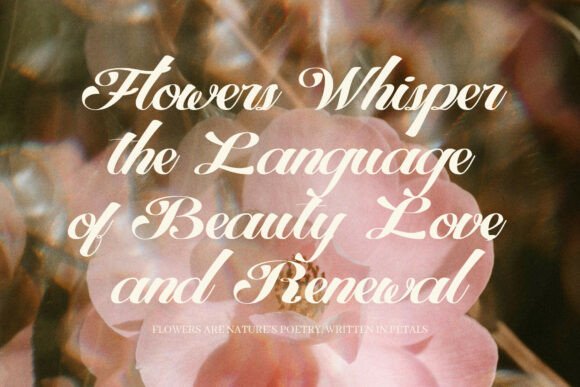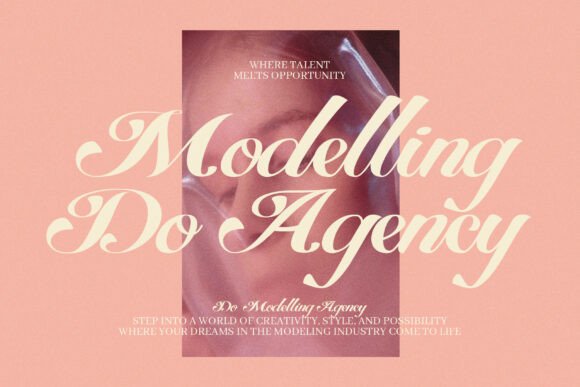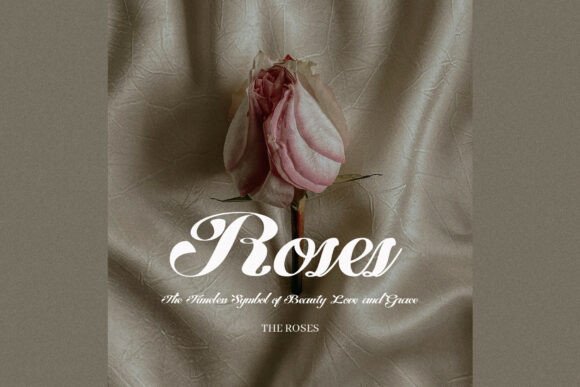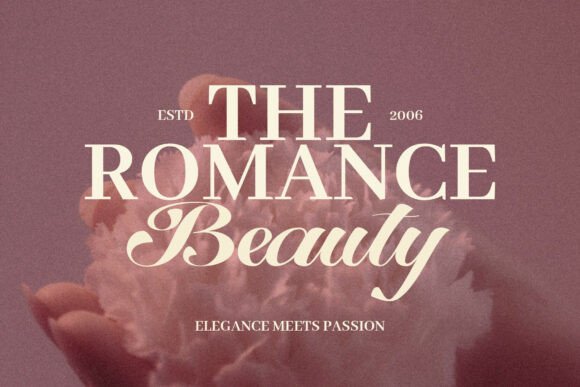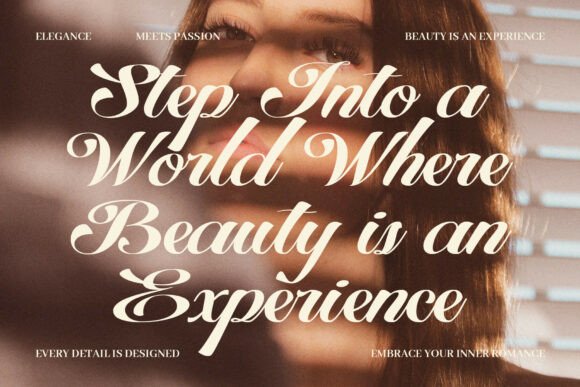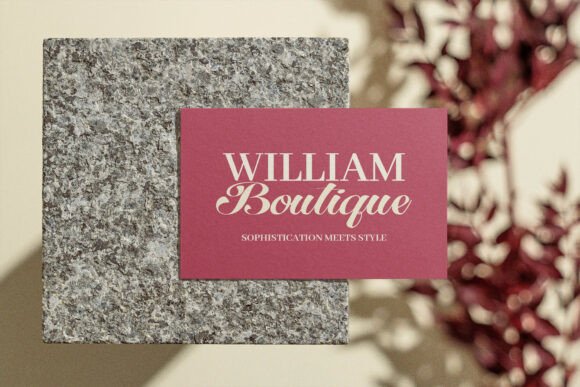
Discover the Timeless Elegance of Fantyns Font
There’s nothing quite like the thrill of creating something from scratch, watching your design come to life, and knowing you’ve made it special. Whether it’s a wedding invitation, a logo for a new business, or a social media graphic that captures the essence of your brand, the right font can make all the difference.
That’s where Fantyns Script Font comes in – a stunning calligraphy-style typeface that brings a touch of luxury and romance to any design project. With its smooth curves, artistic swashes, and wide variety of stylistic alternates, Fantyns Font is the perfect choice for designers looking to add a high-end, professional touch to their work.
As a designer, you know how important it is to have a font that’s not only beautiful but also functional. That’s why Fantyns Font is a valuable addition to any design toolkit – easy to read, yet sophisticated, with alternate characters, ligatures, and swirls that let your creativity shine.
Fantyns Font Key Features
- Font Family: Fantyns Font is a unique, hand-drawn script font designed for creative and artistic purposes.
- Unique Characteristics: The font features a whimsical, cursive design with intricate details and flourishes, making it perfect for adding a touch of elegance and sophistication to designs.
Designer Review: Fantyns Font
Overall, I’m quite impressed with the Fantyns Font. ✨ It has a unique, playful feel that would be perfect for creative projects like children’s books, advertising, or even branding for a fun startup. The font is highly customizable, with plenty of options for adjusting the size, color, and even the spacing between characters.
- ✨ The font’s versatility is one of its strongest points. It can be used in a variety of contexts, from formal to informal, and still manage to look stylish.
- ✨ The numerous font styles available make it easy to find the perfect fit for your design needs.
- ✨ The font is highly legible, making it perfect for large blocks of text or for readers who may have difficulty seeing small text.
However, there are a few limitations to consider: ⚠️ The font may be a bit too playful for more formal projects, and it may not be suitable for projects that require a more conservative or traditional look.
Overall, I’d give Fantyns Font 4 out of 5 stars. It’s a great choice for designers looking for a fun, creative font that’s highly customizable. Just be sure to consider the context in which you’re using it.
Tips for Getting the Most Out of Fantyns Font
For optimal results, use Fantyns Font in combination with bold or italic effects to add emphasis and create visual interest.
Experiment with different font sizes and line spacings to achieve the perfect balance between readability and aesthetics.
Fantyns Font is ideal for creative projects that require a unique and eye-catching font, such as: